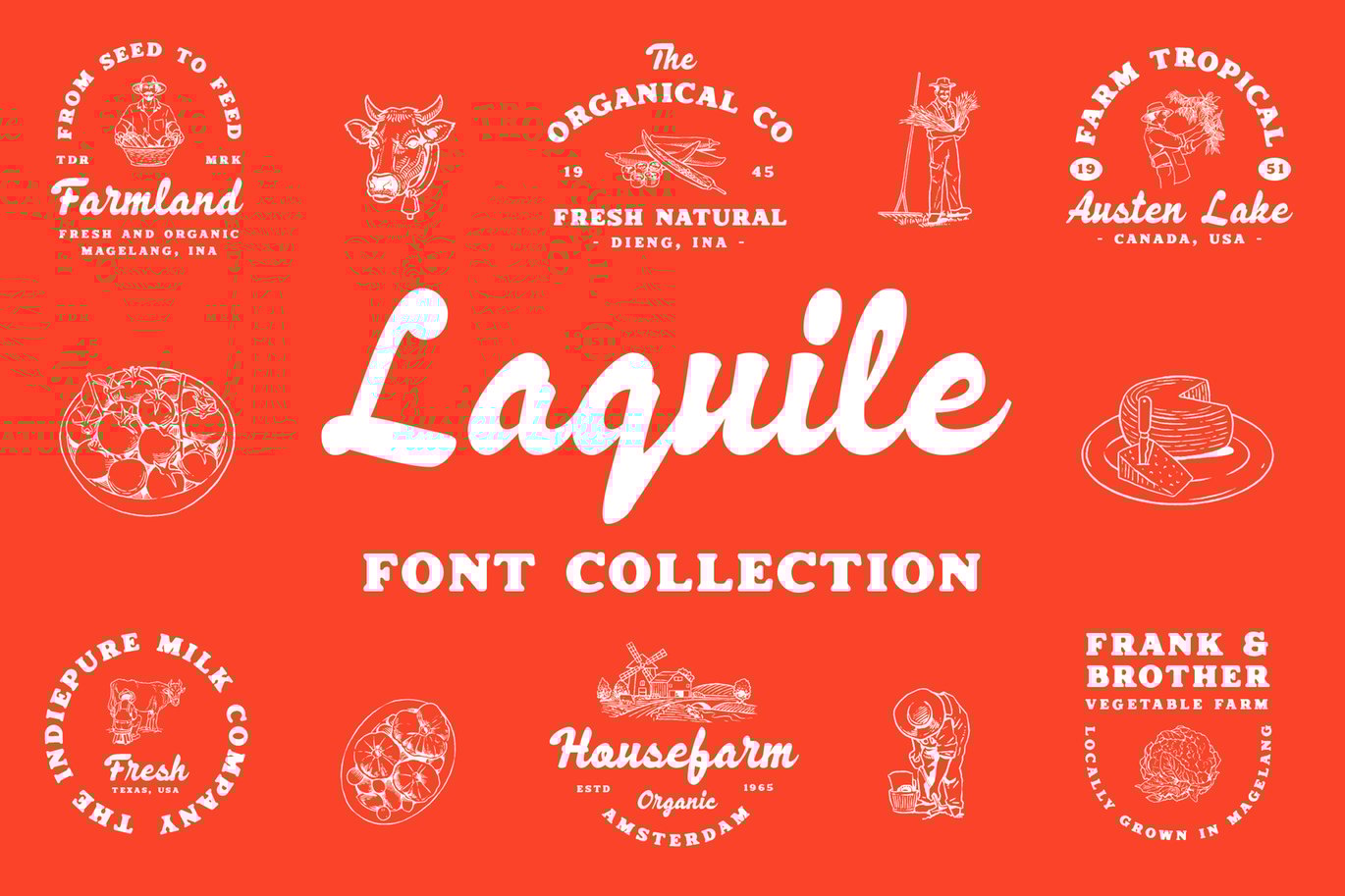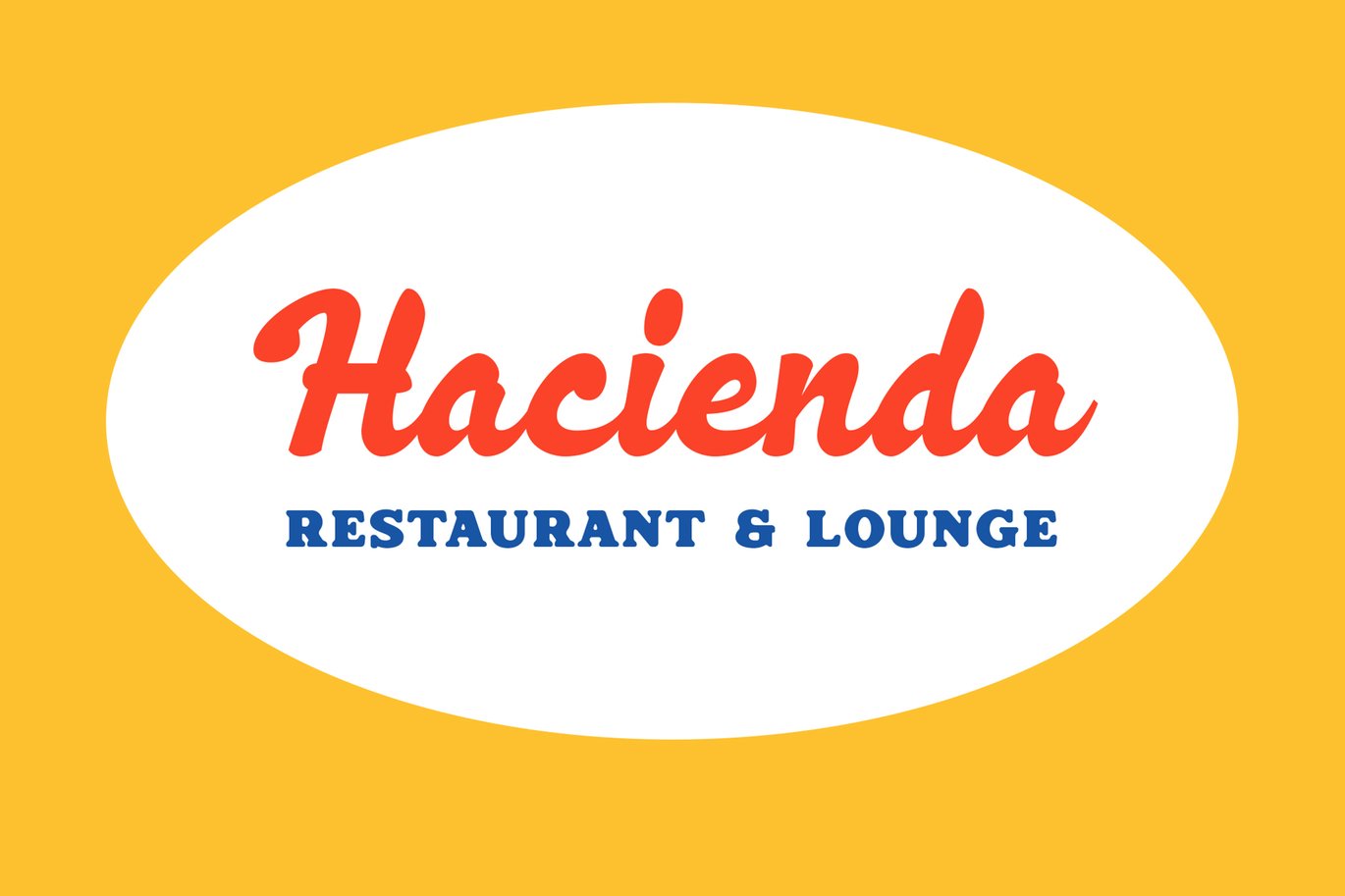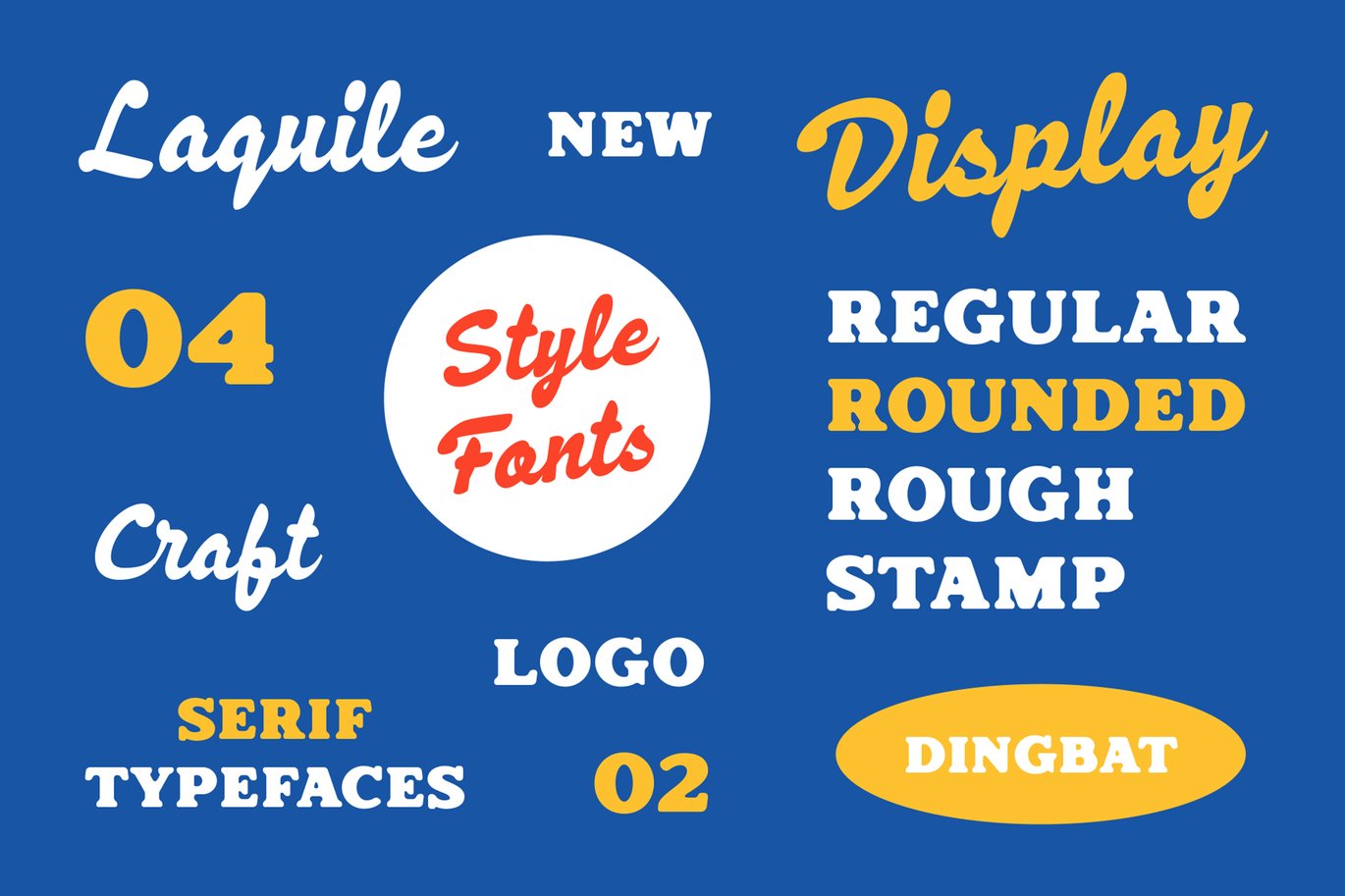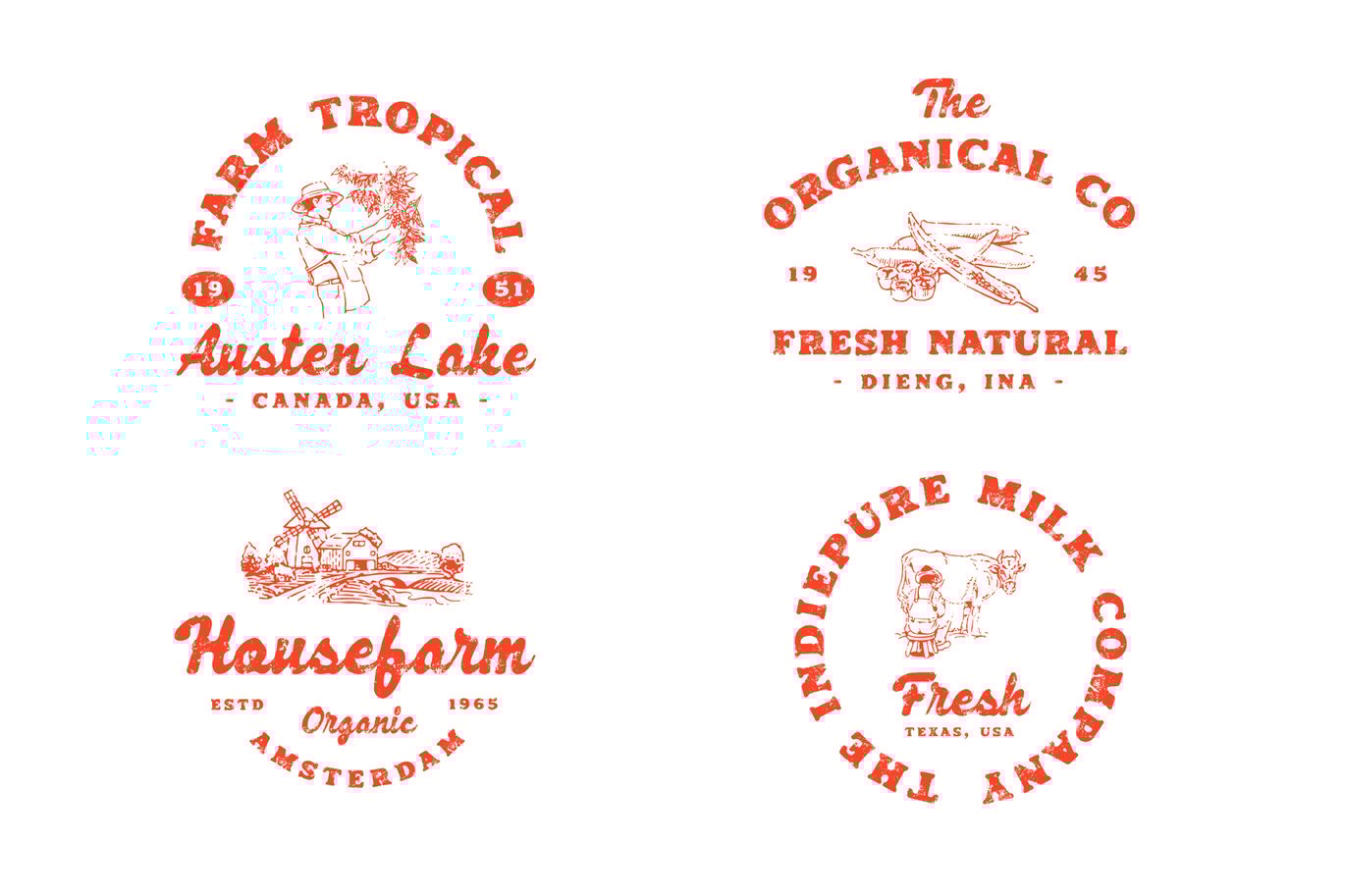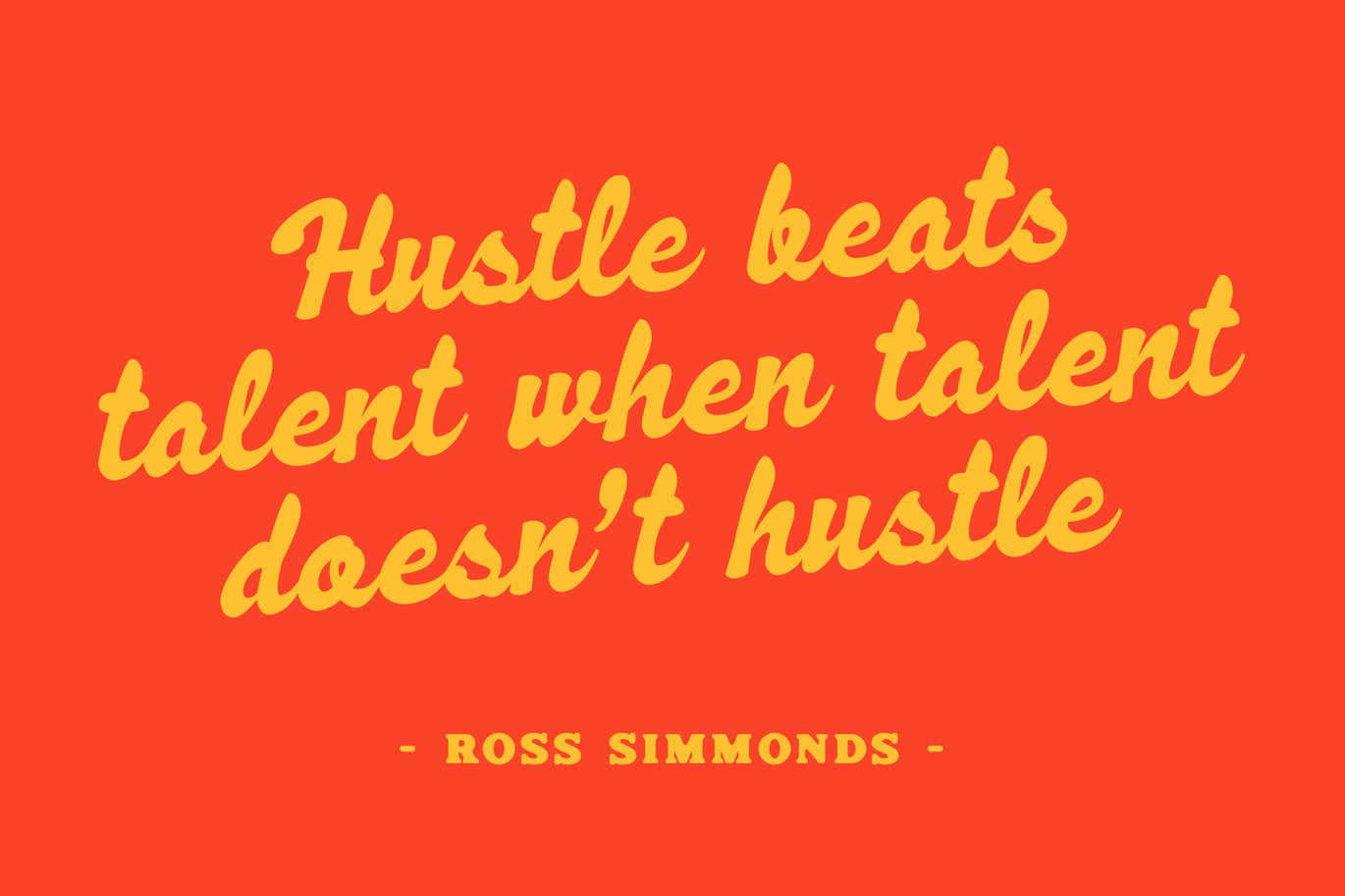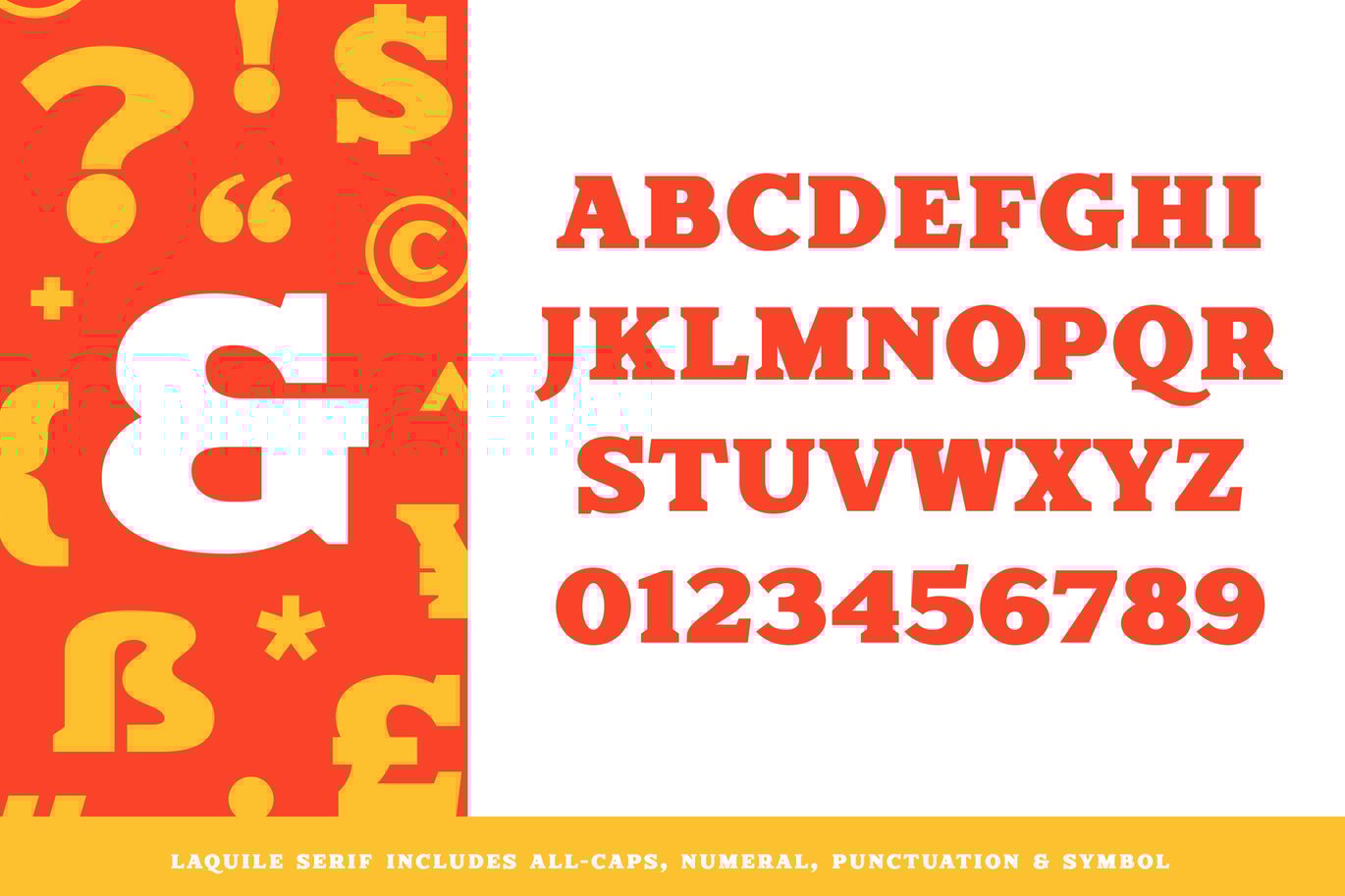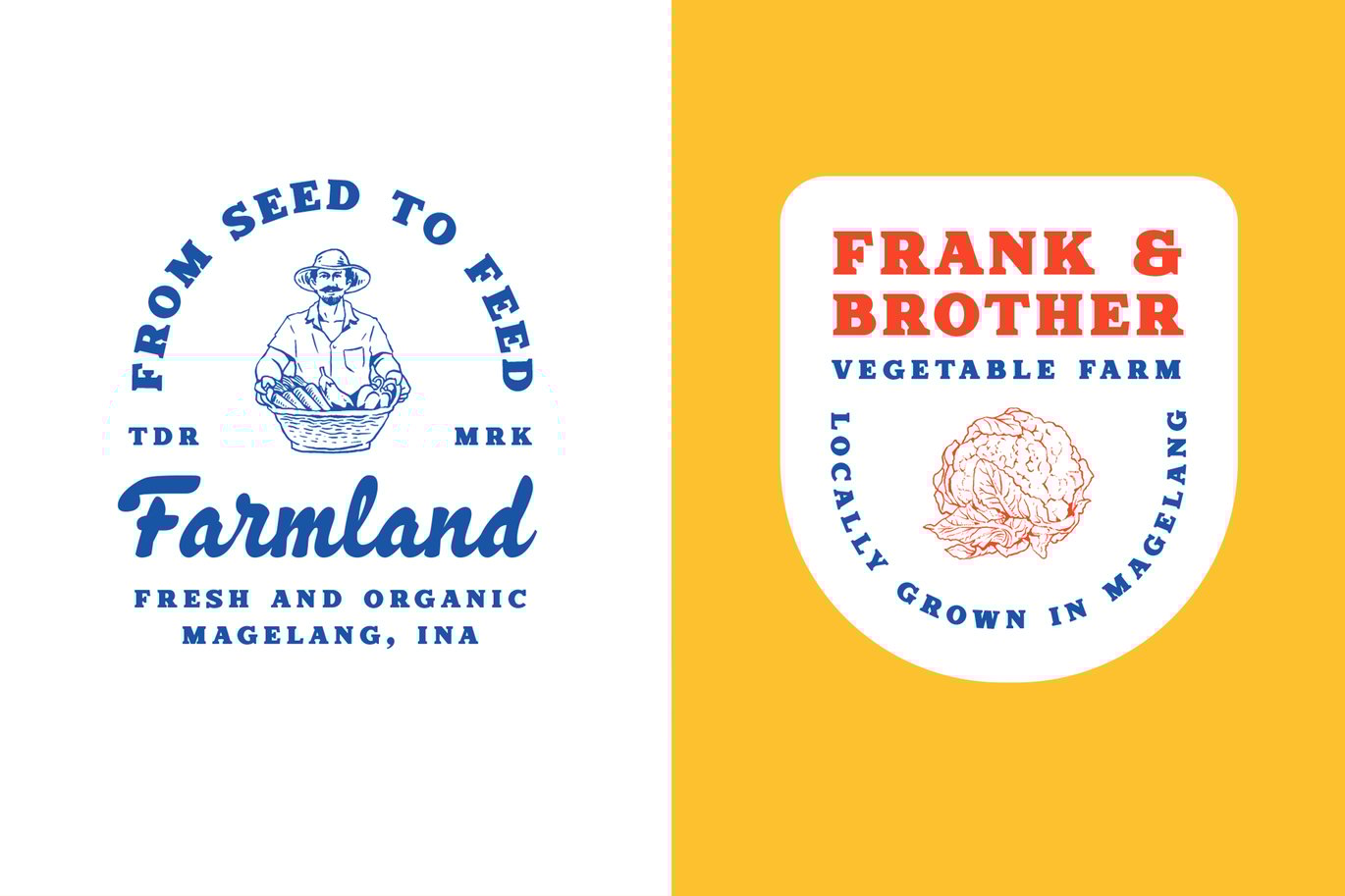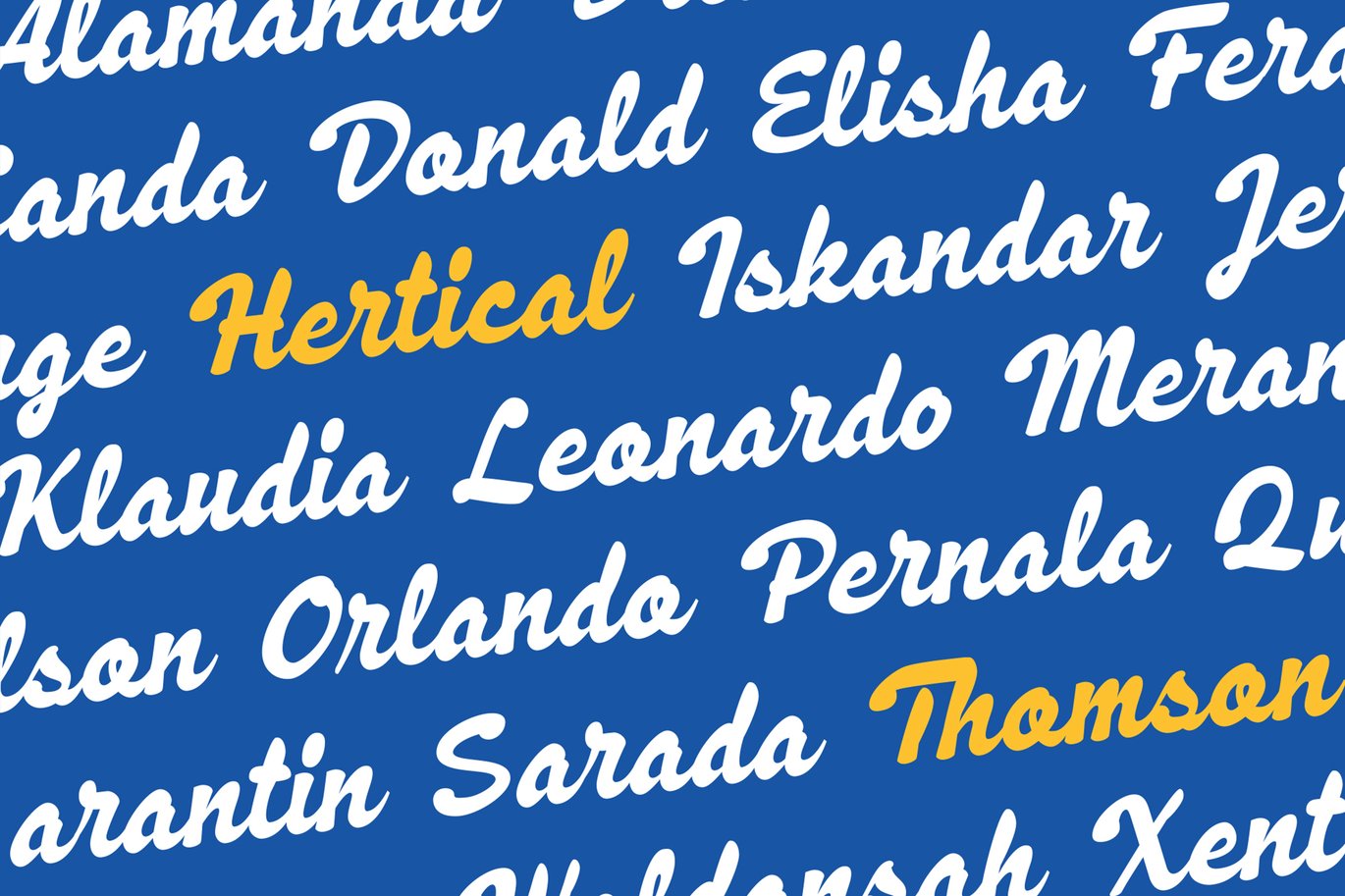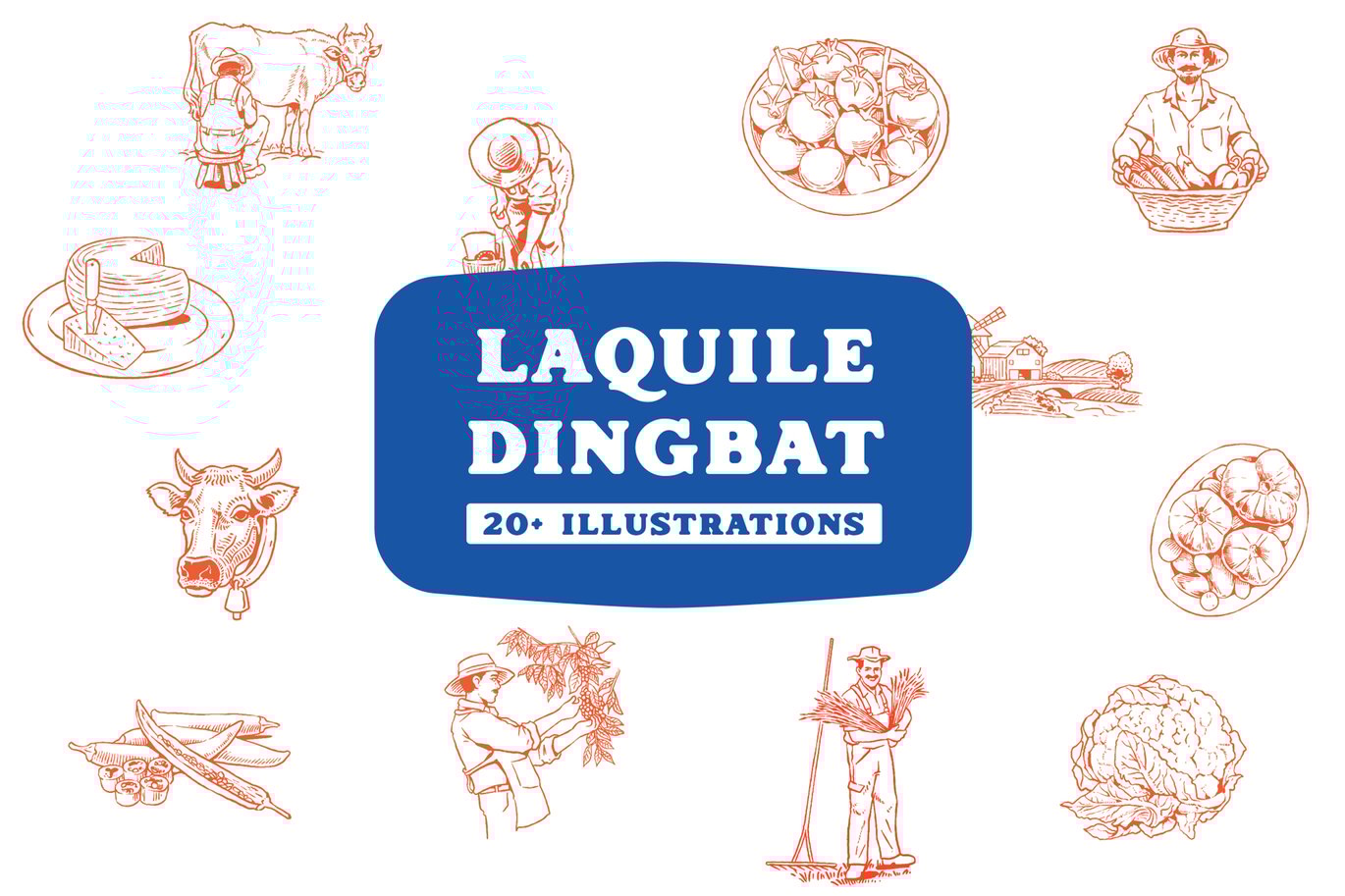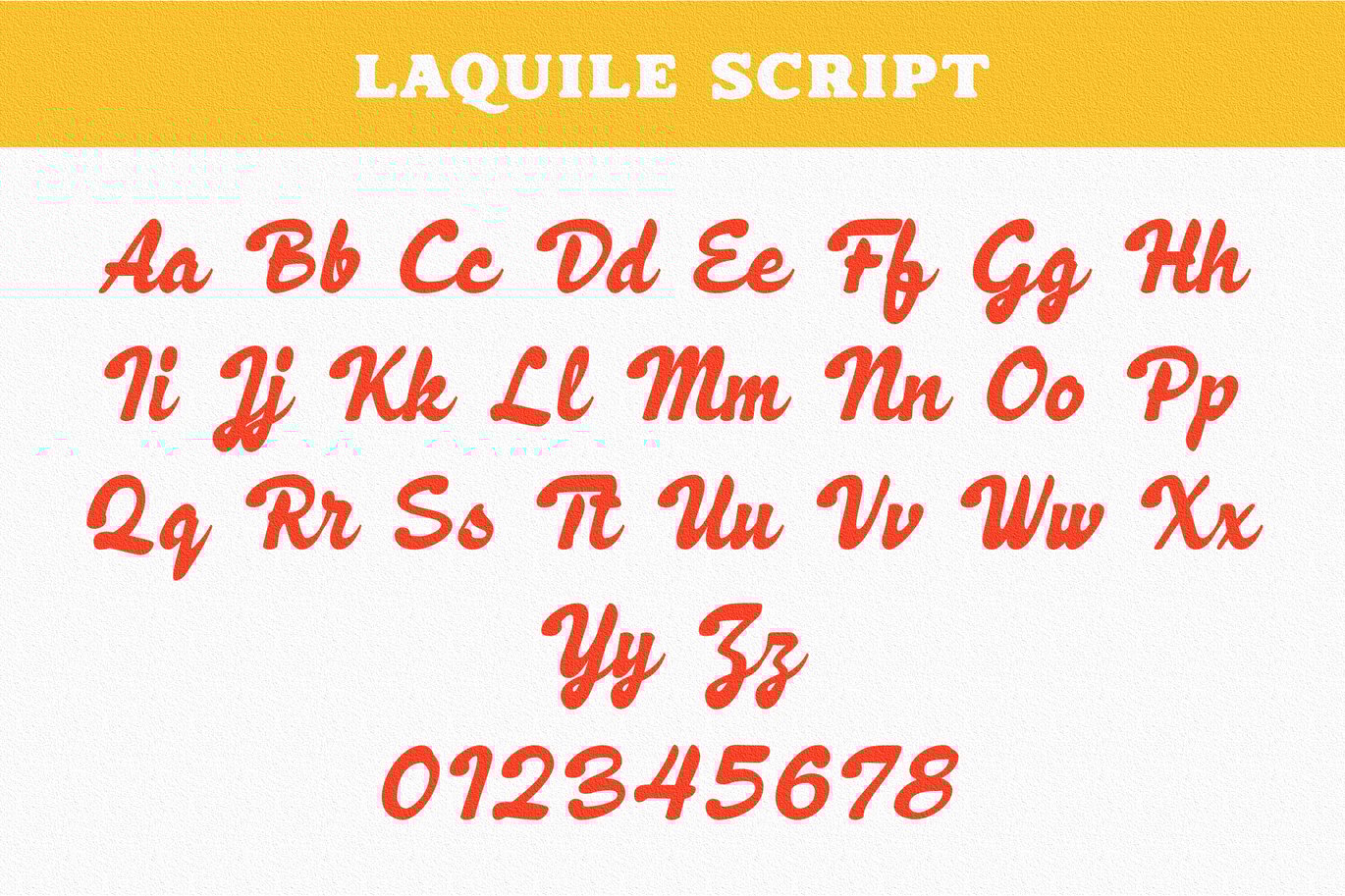
Laquile – Display Font
The font collection is called “Laquile”, it is a display font for logotype. These collections contain script and serif font. Every font comes with 4 style typefaces (regular, rounded, rough and stamp). Laquile give more extras 1 pack farm illustrations. This script font includes some alternates. The Laquile matches apply in some designs such as the logo, poster, label, badge, packaging, branding, quotes and more custom design.
Laquile features :
- 4 style typefaces (regular, rounded, rough and stamp)
- Uppercase, lowercase, numeral, symbol, punctuation and alternate in script font
- All-caps, numeral, symbol and punctuation in serif font